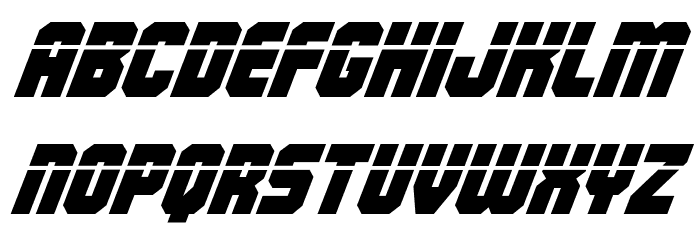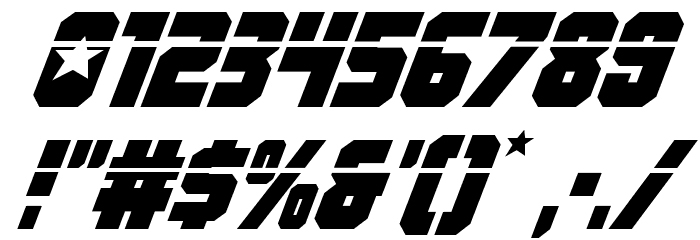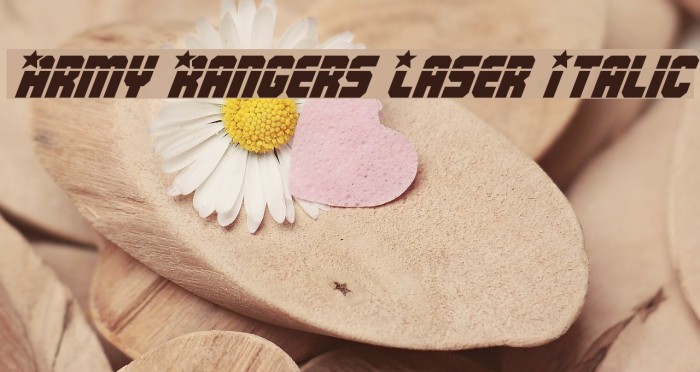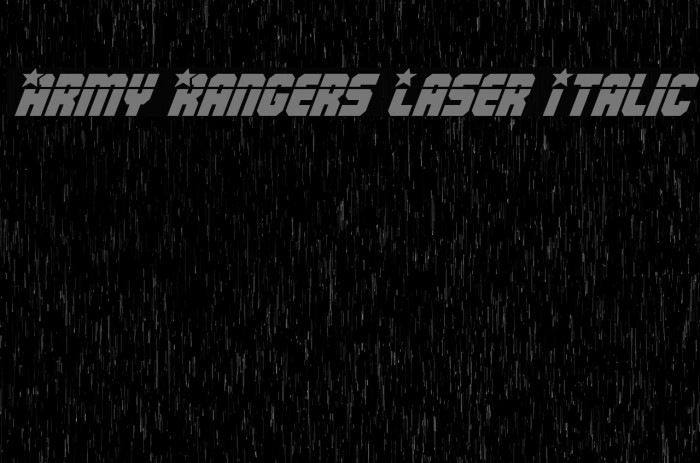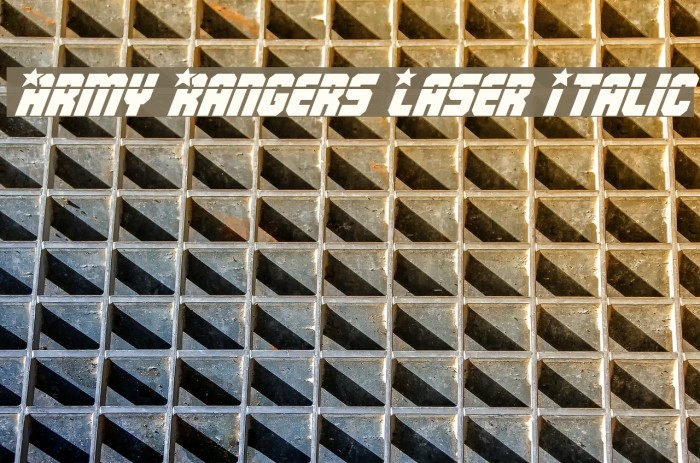
Army Rangers Laser Italic Font
This bold and dynamic font features a strong, angular design with a distinct italic slant, giving it a sense of motion and urgency. The uppercase letters are adorned with stars, adding a decorative military-inspired touch. The characters are tightly spaced, enhancing the compact and powerful appearance. The font's thick strokes and sharp edges convey a sense of strength and authority, making it ideal for impactful designs. The numbers and special characters maintain the same bold style, ensuring consistency across all elements.
A bold, italic, military-inspired font with star accents and strong, angular design.
- Proposed Projects: Ideal for military-themed posters, action movie titles, sports team branding, and dynamic logo designs.